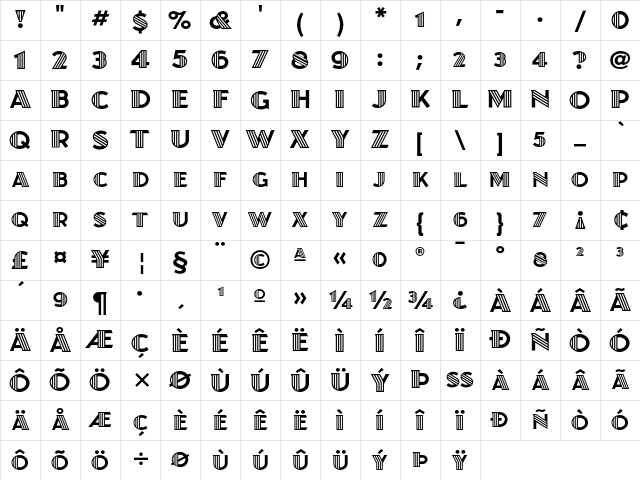
Complete Juanita Deco ITC Regular glyph index. Displaying only characters natively supported by Juanita Deco ITC Regular font.
Juanita Deco ITC is a composed and adaptable typeface that performs quietly and consistently across a wide range of design contexts.